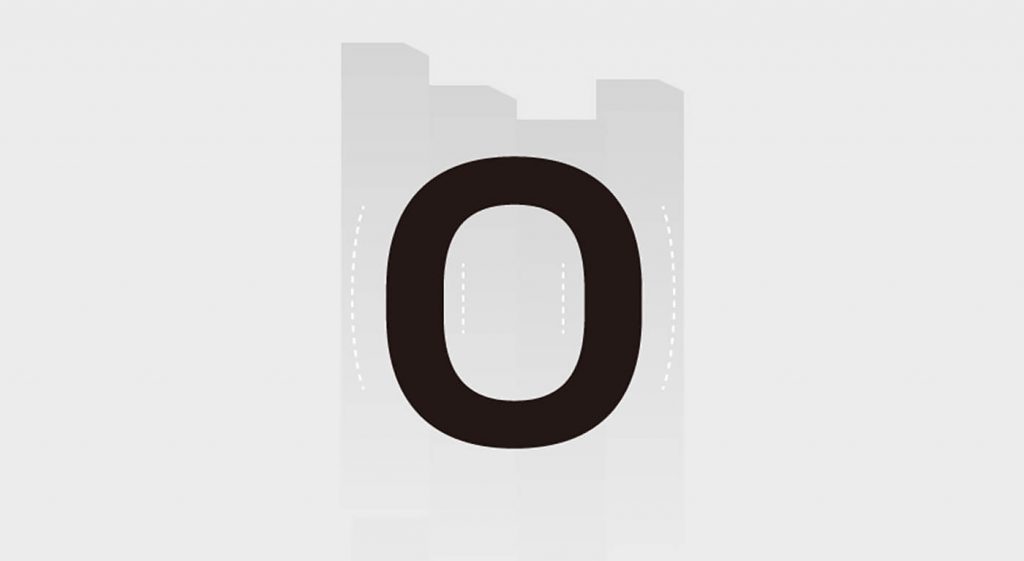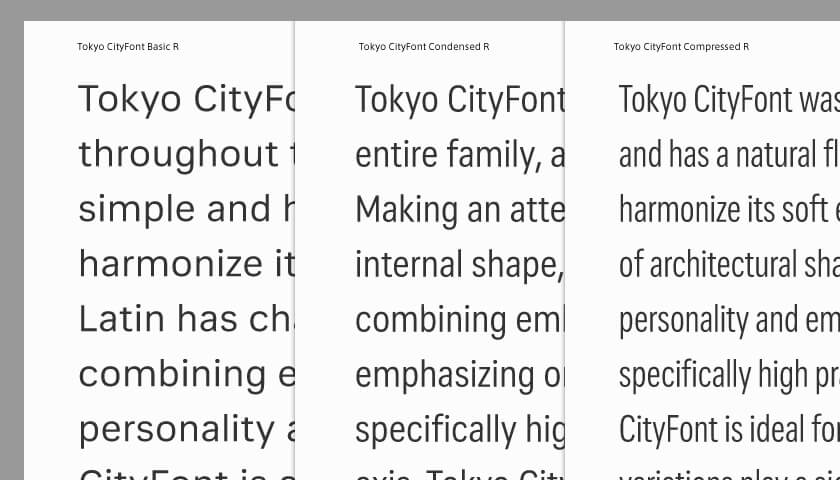
Tokyo CityFont Development Story 01: Features of Latin Design
Tokyo CityFont began when it was provided as a typeface by Nippon Design Center for indicating town blocks. With a focus on the theme ‘stylishness,’ the font features moderate modulation and slight narrowness. Later, a new design was produced in consideration of compatibility with buildings in Tokyo upon adding signs for public transport, etc., which is the important conventional theme, at the time of releasing the commercial version.
The overall design has a geometric atmosphere with soft outside lines and solid, straight inside lines. Also, the font is available from basic to condensed, so as to be functional in a variety of applications.